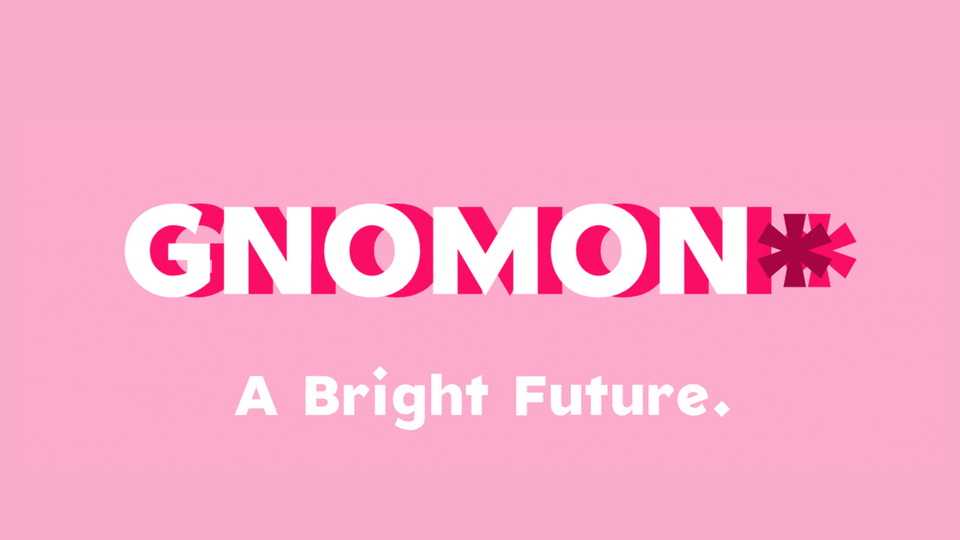
Download Gnomon* font, an original variable display typeface inspired by the bold and striking letterforms of American World War Two Posters.
Designer: Indestructible Type